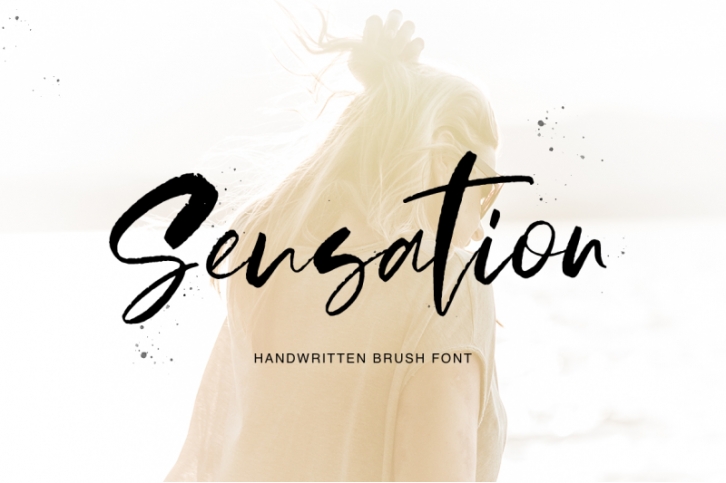
Sensation script - a new handwritten brush font.
This font is ideal for branding and decorate your any project, are perfect for wedding invitation or your blog. Also with their help, you can create a logo or beautiful frame for your home. Or just use for your small business, book covers, stationery, marketing, magazines and more.Especially for you, I have prepared a lot of ligatures and alternatives that would be your project was more unique.